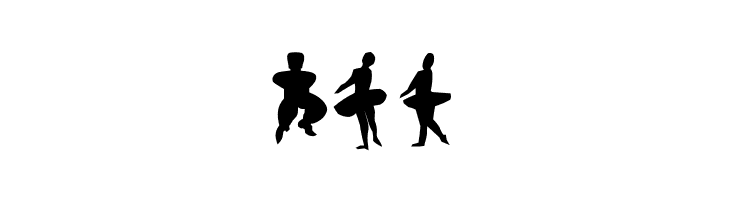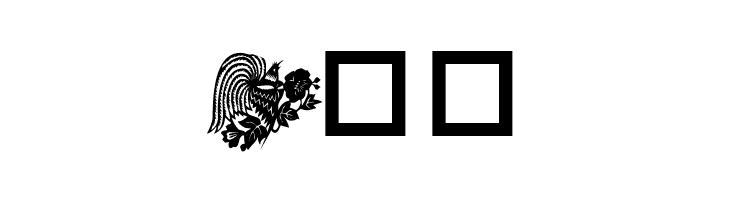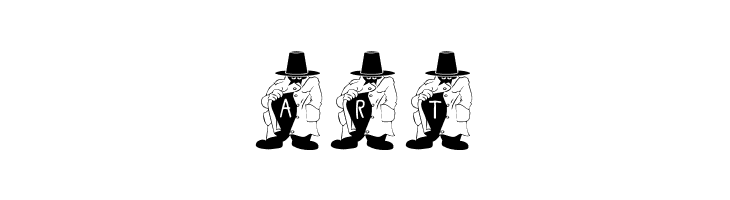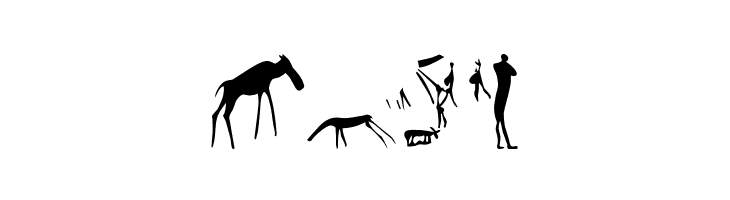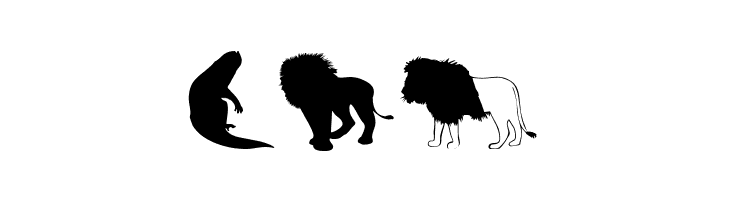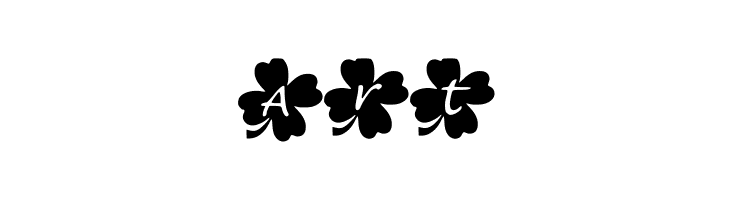
A collection of dancer silhouettes representing characters in artistic poses.
A playful font with letters inside Pikachu silhouettes, perfect for fun projects.
Ornamental font with bird-themed illustrations for each character.
Religious pictogram dingbat font with bold, high-contrast icons.
Animal silhouette font with each character as a unique animal shape.
A playful, detective-themed decorative font with characters embedded in trench coat silhouettes.
Primitive, hand-drawn glyphs reminiscent of ancient rock art.
Animal silhouette font with African wildlife motifs.
A whimsical font with script letters inside four-leaf clover silhouettes.
Ornate decorative panels and frames in silhouette style.